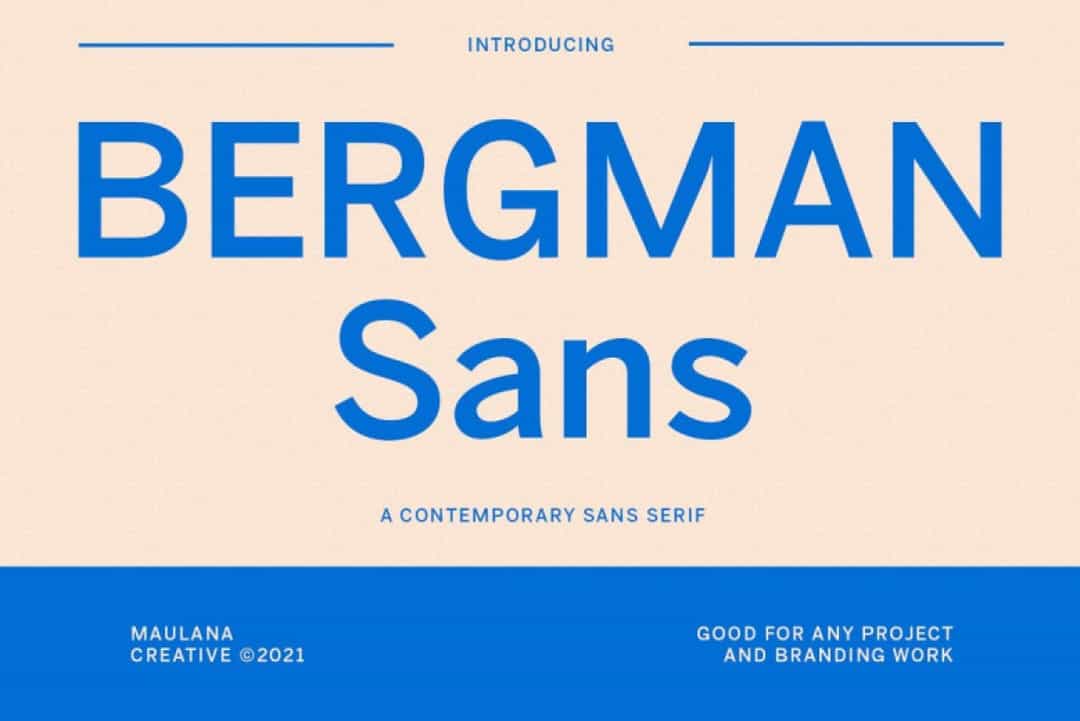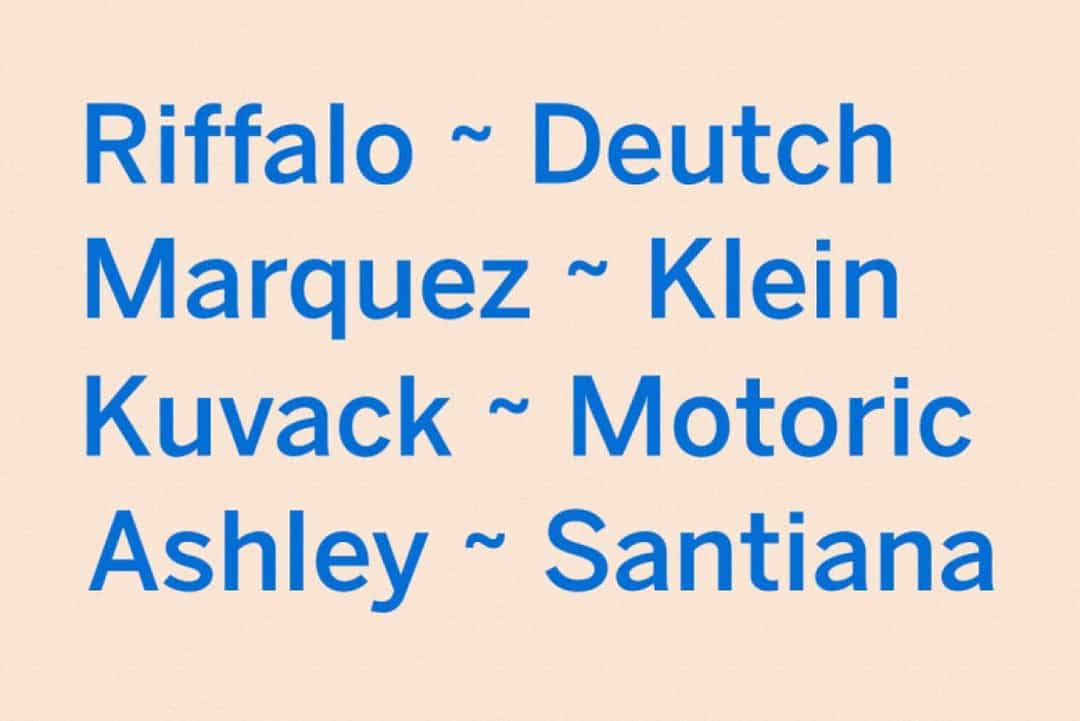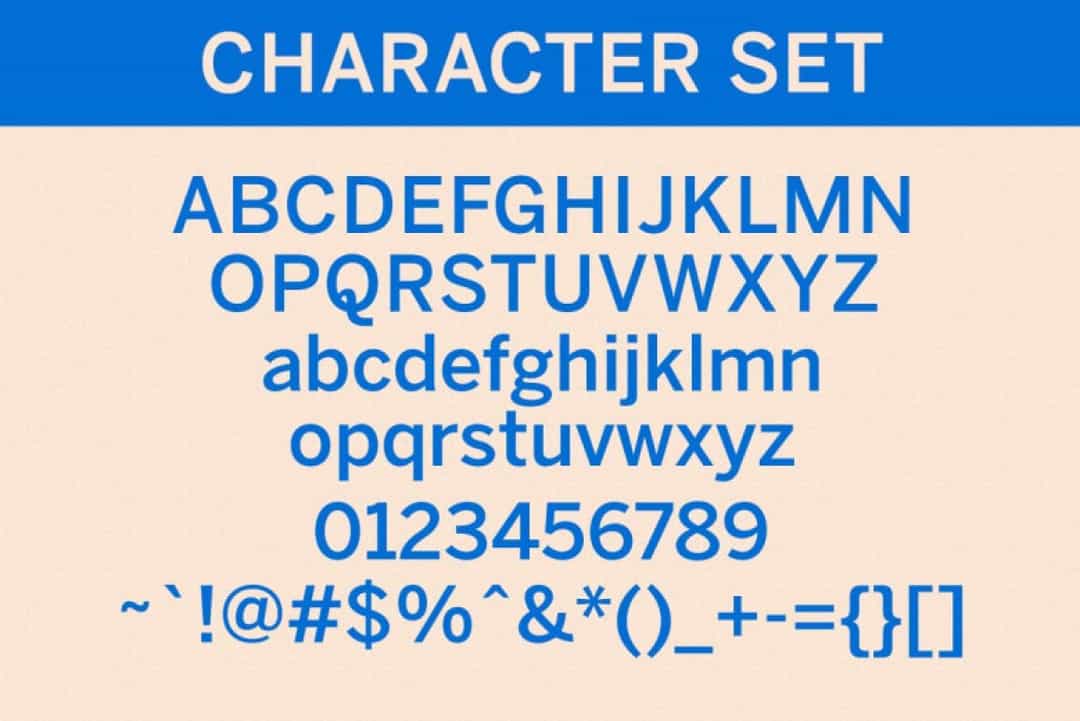
Bergman Sans is a classic and contemporary Sans Serif Font, boasting bold weight strokes and charming characters with some fun ligatures for added artistic work. Supporting over 100 languages worldwide.